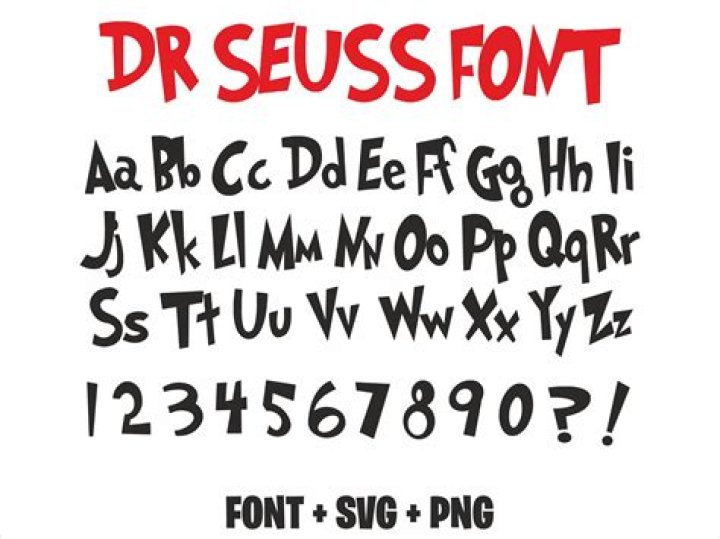
What is the font used for Dr Seuss?
The typeface used for body text in Dr Seuss’ published books is Century Schoolbook, as explained by Ted Baker and others. The lettering for the titles of Dr Seuss’ books was something he did by hand.
What is the Dr Seuss font on Dafont?
You can use “Doctor Soos” or “Grinched” both do the trick.
What font is One Fish Two Fish?
New Century Schoolbook was used for the interior of this and many of the other first edition Dr. Seuss books. Update: Stuart Sandler informs me that this is actually Filmotype Major, released as a photocompositor font in 1951.